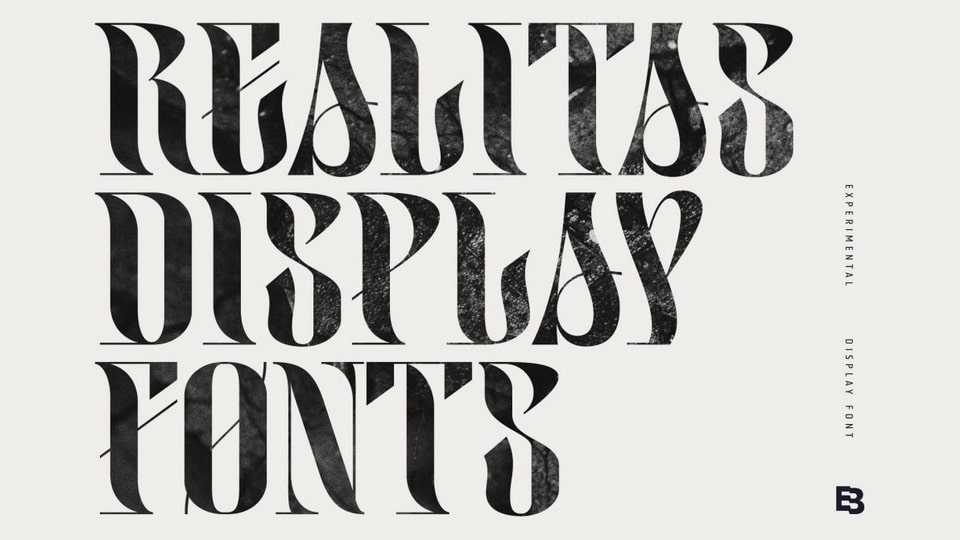
Download Realitas font, an experimental display typeface. Realitas font deeply explores letterforms beyond common boundaries and creates new possibilities in letter structure.